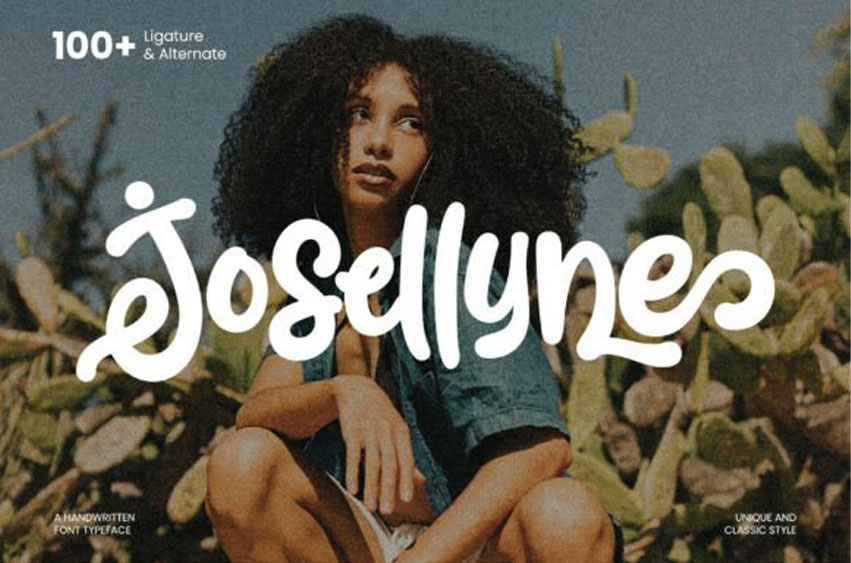
Josellyne Font
Josellyne Font is a bold handwritten typeface featuring over 100 ligatures and stylistic alternates, designed to deliver a dynamic and expressive typographic experience.
Its thick strokes and fluid curves convey a confident, playful tone, making it well-suited for branding, logo design, packaging, social media graphics, and apparel.